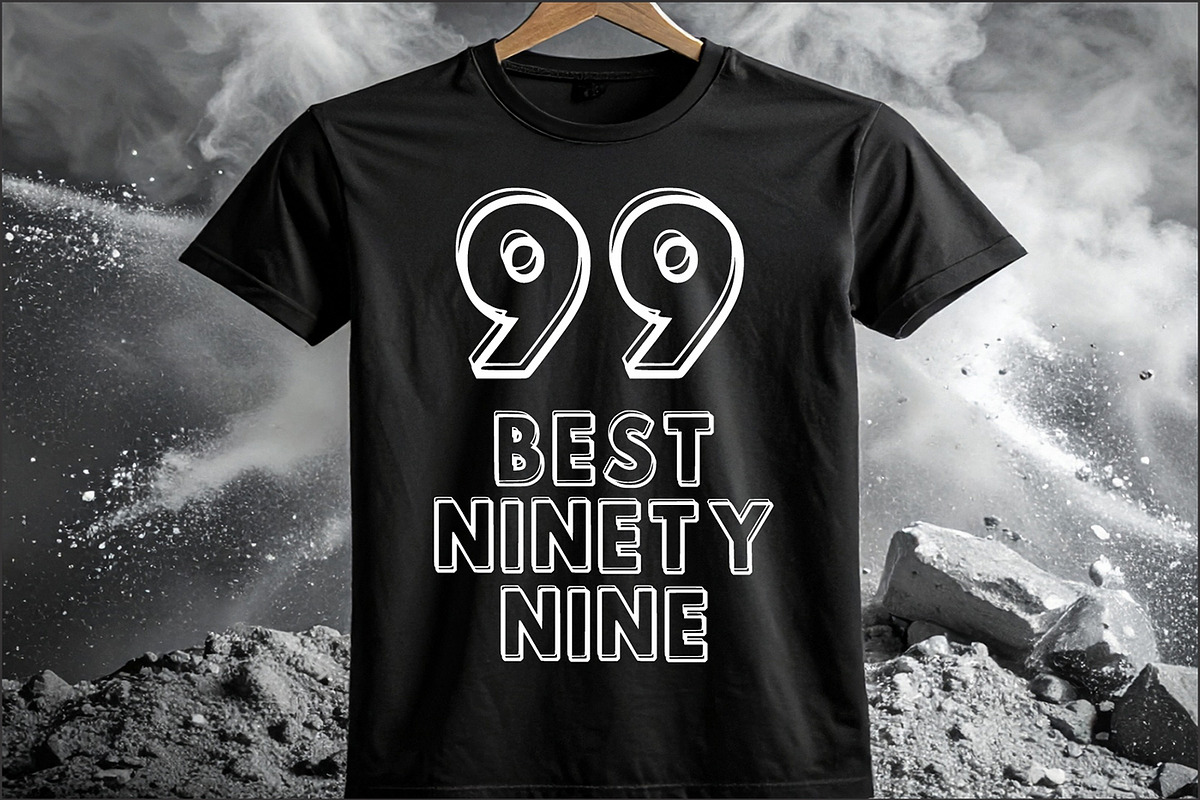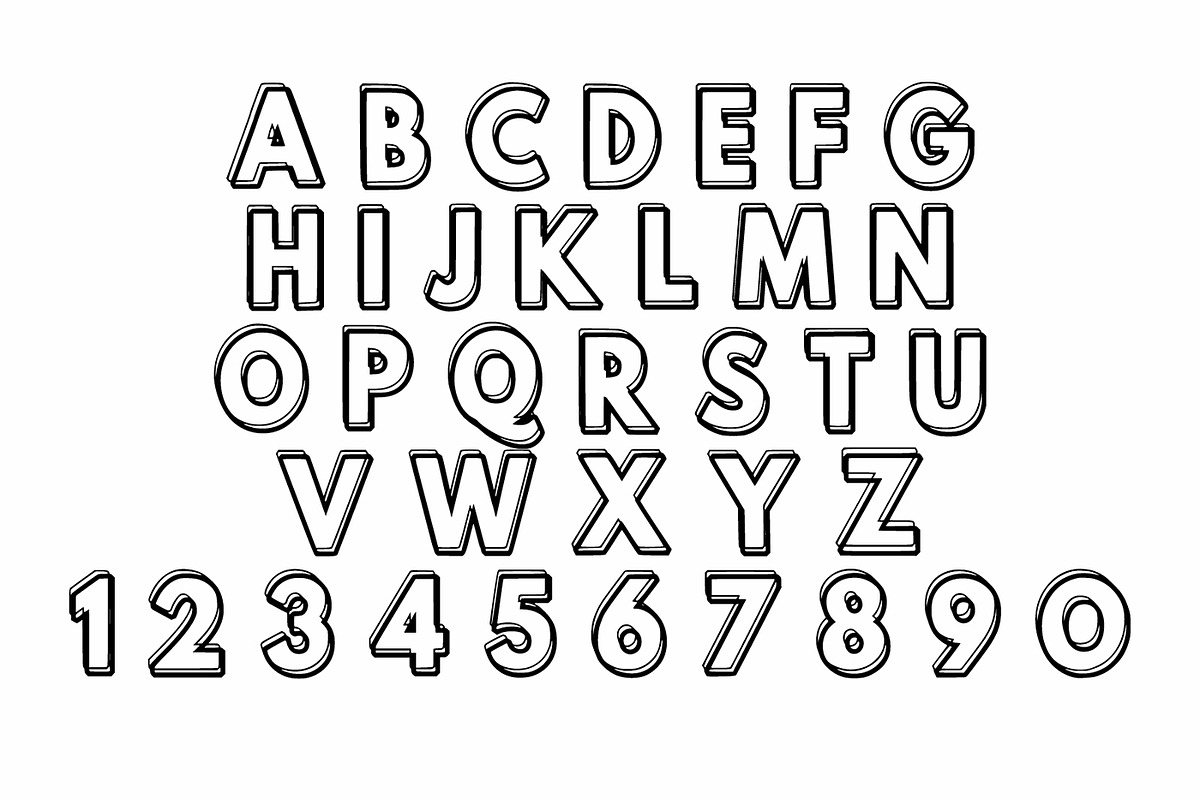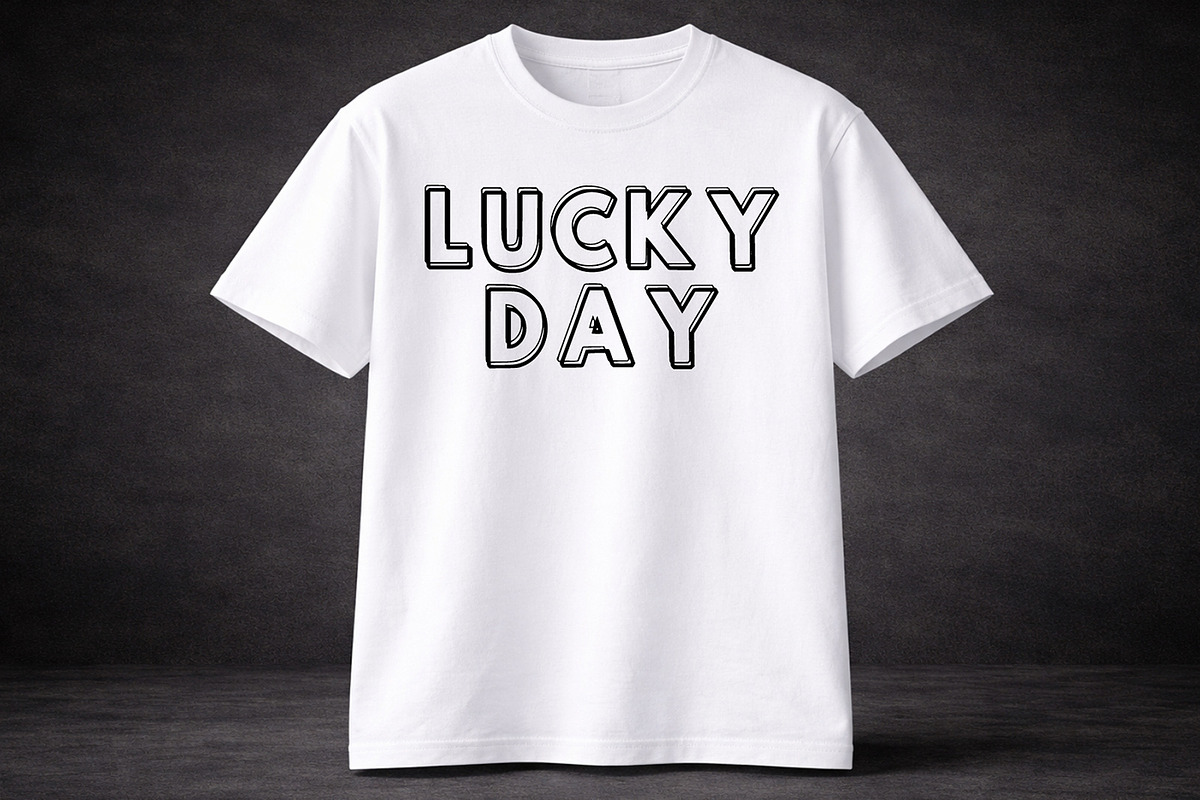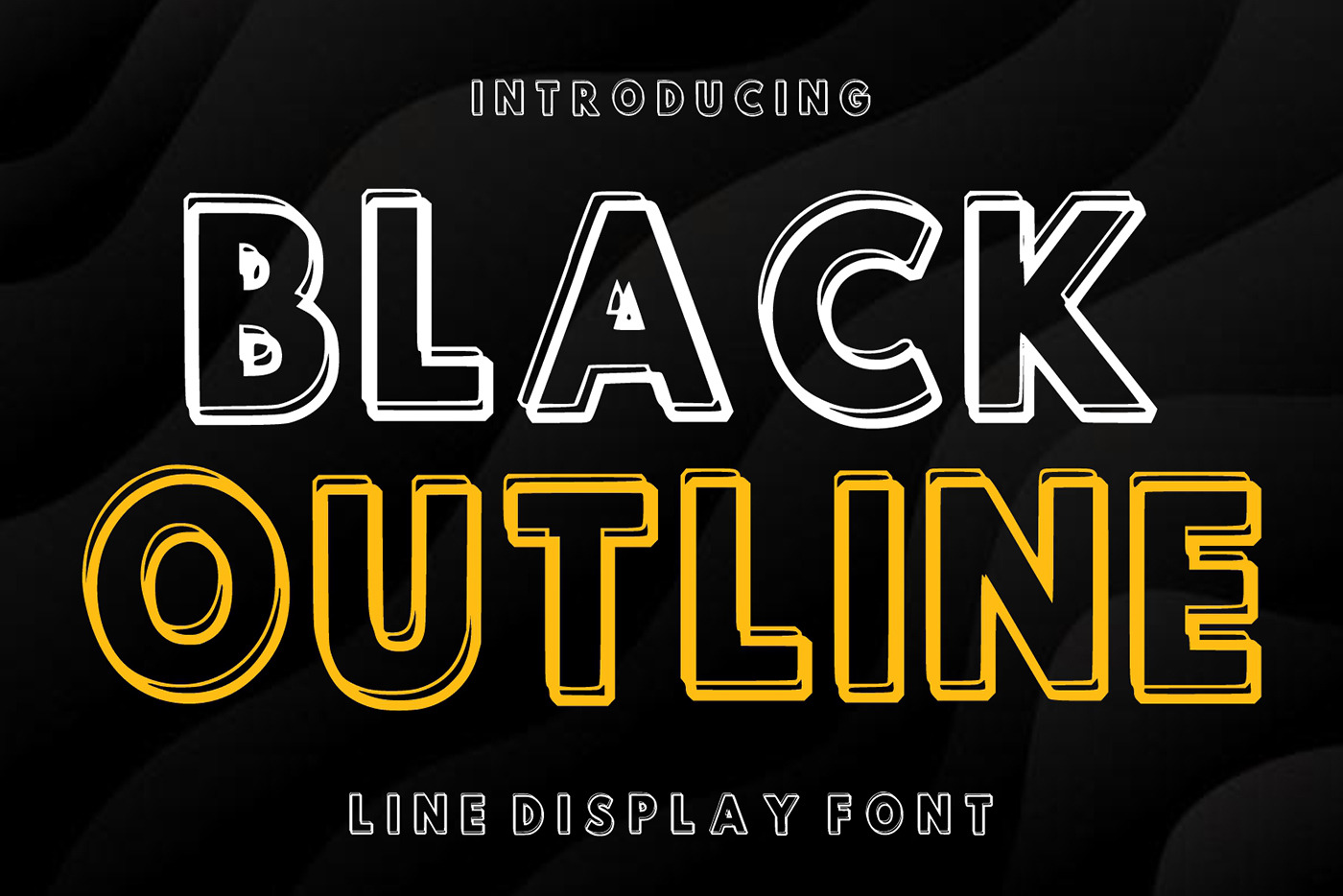
Black Outline Line Display Font
Black Outline Line Display Font is a modern and stylish display typeface featuring bold characters with a clean double-line outline style. This font combines a contemporary look with a strong visual impact, making it perfect for eye-catching headlines and creative typography projects. Ideal for posters, logos, branding, apparel designs, packaging, social media graphics, and modern retro layouts. Its sleek outline structure gives designs a bold yet minimal appearance that works well across many creative applications.